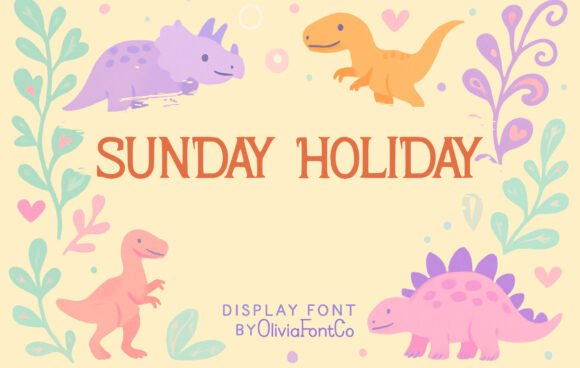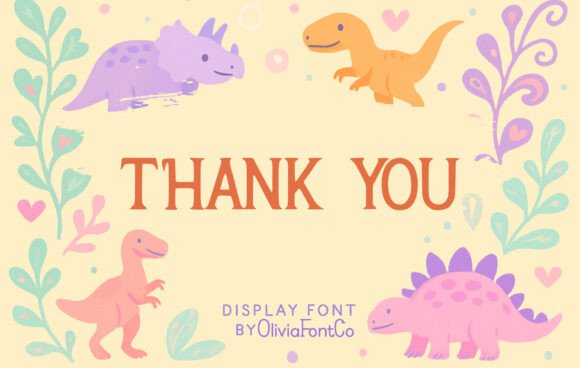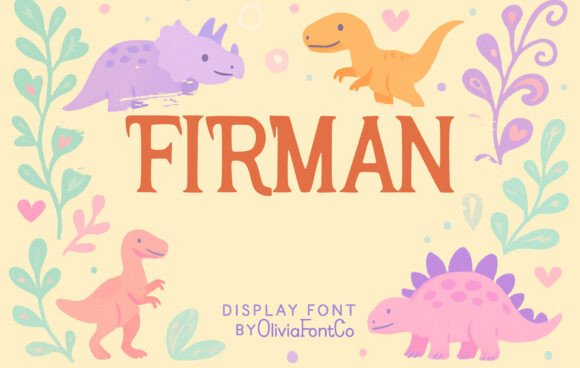
Firman Font: Elevate Your Designs with Elegance and Versatility
In the world of typography, a well-crafted font can make all the difference in bringing your creative visions to life. Firman Font is one such expertly designed typeface that has the potential to take your designs to new heights. With its exceptional legibility and versatility, Firman Font is poised to become a true favorite among designers and crafters alike.
Unleash Your Creativity with Firman Font
Firman Font is meticulously crafted to cater to a wide range of design needs. Its clean and elegant lines make it perfect for use as both title and body text. Whether you’re working on a magazine headline, t-shirt design, social media post, branding project, wedding invitation, or card, Firman Font is the ideal choice. Its versatility knows no bounds, allowing you to experiment with various design ideas with ease.
Key Features of Firman Font
- Legibility: Firman Font boasts exceptional legibility, making it easy to read and understand, even at smaller font sizes.
- Versatility: Use Firman Font for a variety of design projects, from titles and headings to body text and captions.
- Elegance: The font’s clean and elegant lines add a touch of sophistication to any design.
Design Ideas with Firman Font
Firman Font can elevate a wide range of design projects. Here are some ideas to get you started:
- Magazine Headlines: Use Firman Font to create eye-catching headlines that grab the reader’s attention.
- T-Shirt Designs: Add a touch of elegance to your t-shirt designs with Firman Font.
- Social Media Posts: Make your social media posts stand out with Firman Font’s clean and elegant lines.
- Branding: Use Firman Font to create a consistent brand identity across various platforms.
- Wedding Invitations: Add a touch of sophistication to your wedding invitations with Firman Font.
- Cards: Use Firman Font to create beautiful and elegant cards for special occasions.
Why Choose Firman Font?
With so many fonts available, why choose Firman Font? Here are a few reasons:
- Unique Design: Firman Font has a unique design that sets it apart from other fonts.
- High-Quality: Firman Font is a high-quality font that is designed to deliver exceptional results.
Firman Font is an exceptional typeface that has the potential to elevate your designs to new heights. With its elegance, versatility, and legibility, Firman Font is the perfect choice for designers and crafters looking to add a touch of sophistication to their projects. Whether you’re working on a magazine headline, t-shirt design, or wedding invitation, Firman Font is sure to deliver exceptional results.